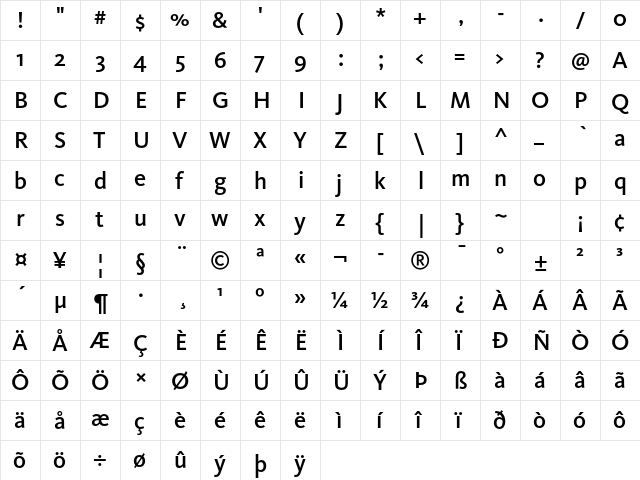
KievitOT-Medium Regular
| Designer | Mike Abbink |
Design Context for KievitOT-Medium Typeface
KievitOT-Medium is a composed and adaptable typeface that performs quietly and consistently across a wide range of design contexts.